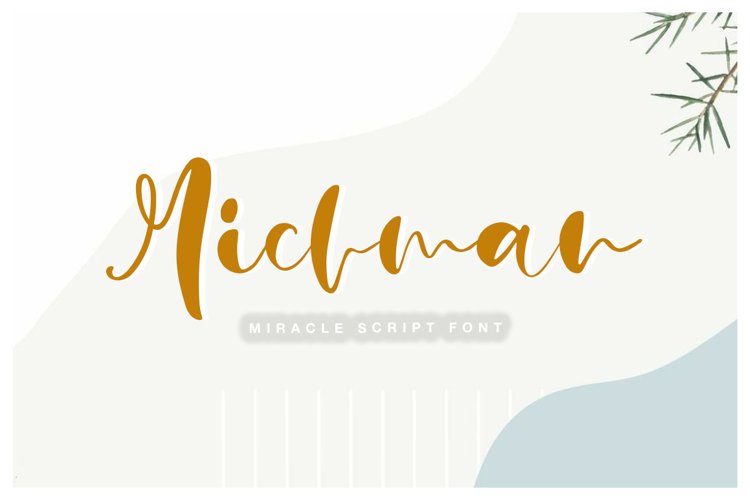
**Michman** - a new two Stylish handmade calligraphy fonts.
Very suitable for greeting cards, branding materials, business cards, quotes, posters, and more!This font are perfect for wedding postcard. Or you can create perfect and unique design of your logo, blog, stationery, marketing, magazines and more :)